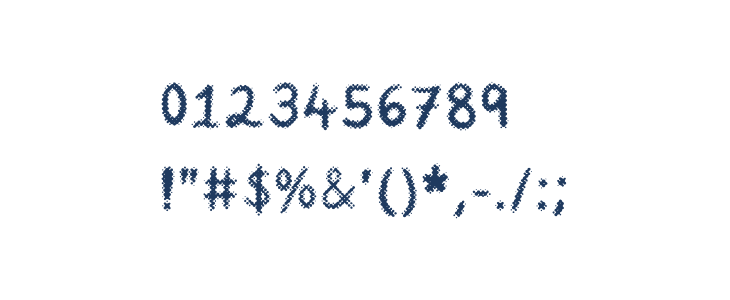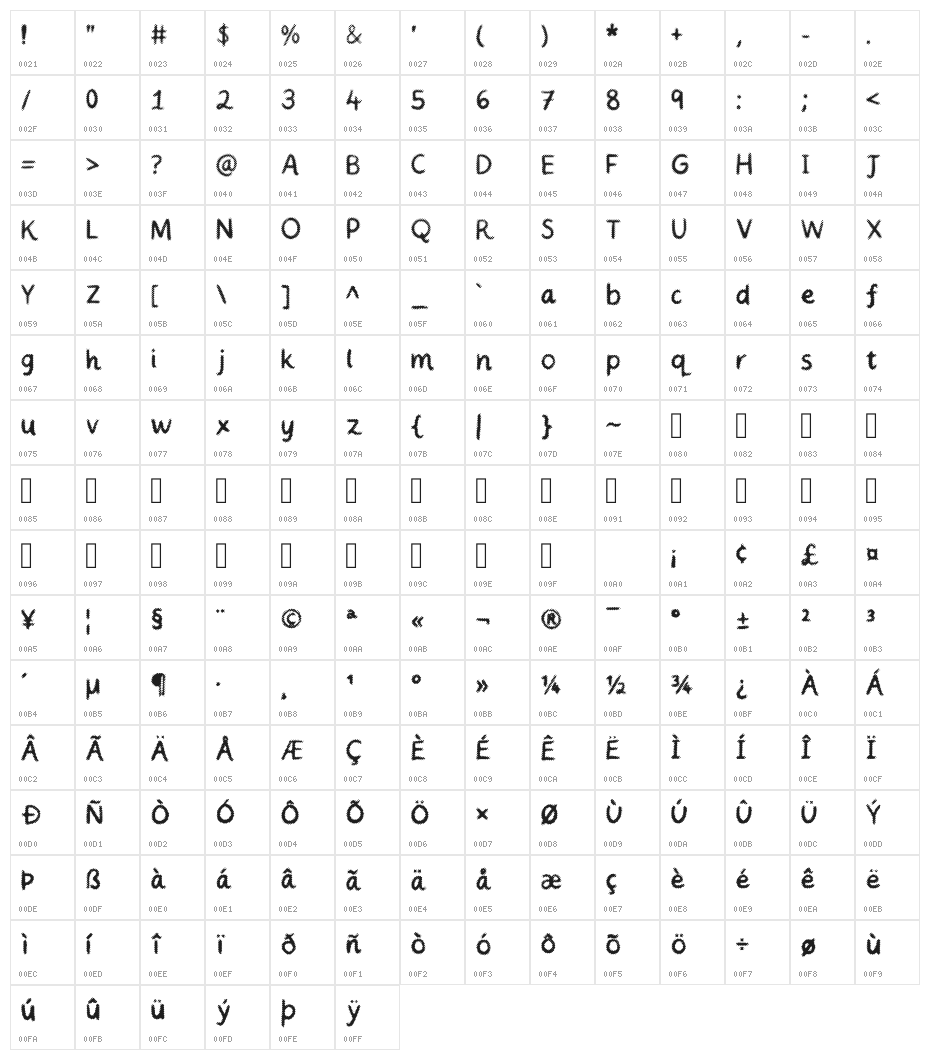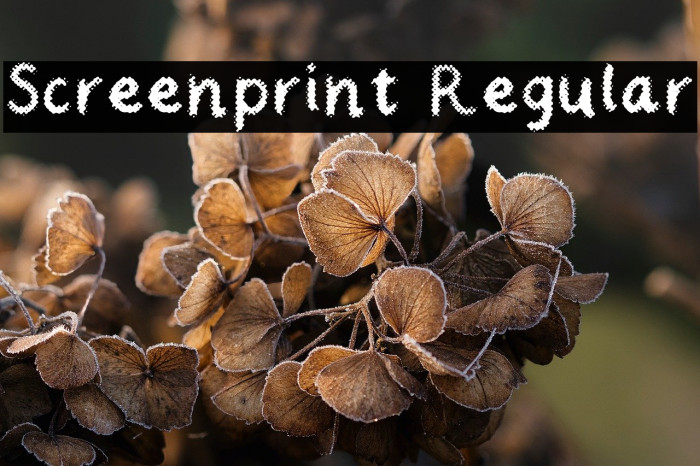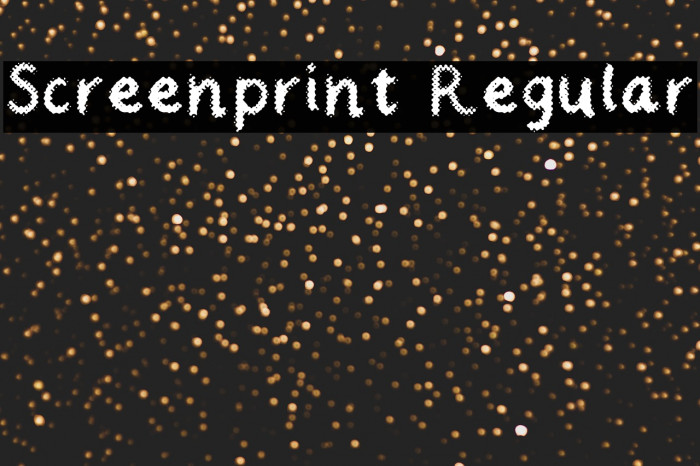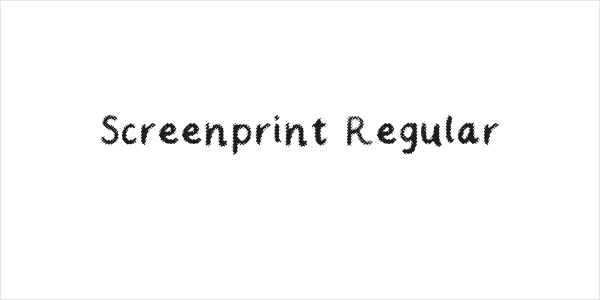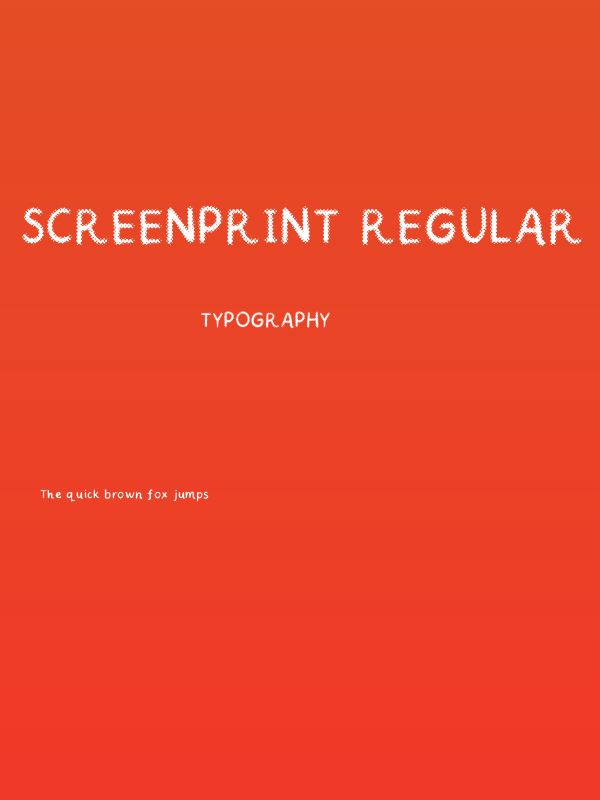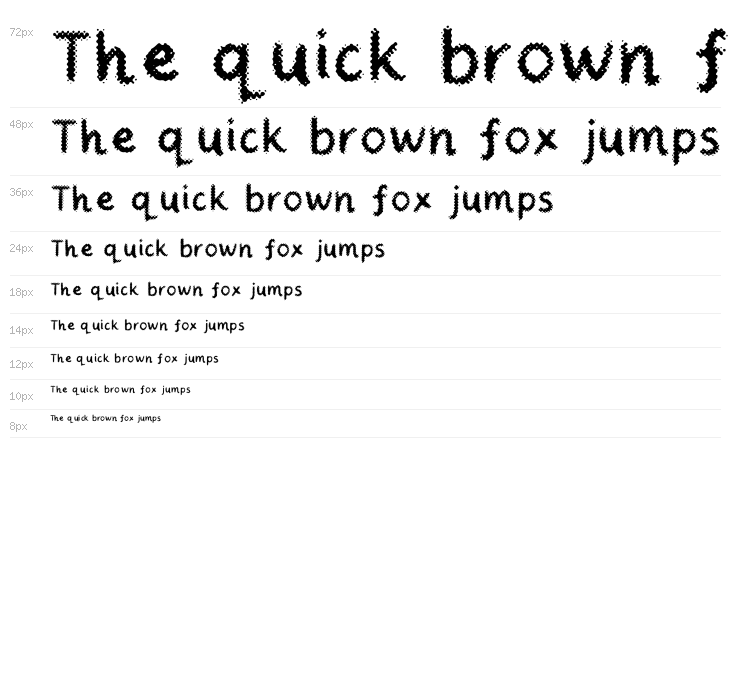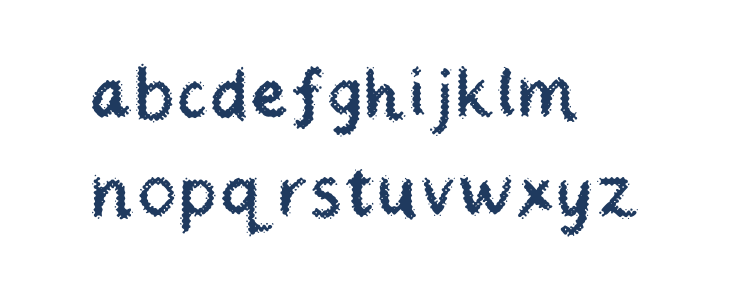
Screenprint Regular Font
Screenprint Regular Description
This font features a unique, textured appearance reminiscent of screen printing techniques. Each character is composed of a series of dots, creating a visually striking and tactile effect. The letters are bold and slightly irregular, giving them a handcrafted feel. The uppercase and lowercase letters maintain a consistent style, with rounded edges and a playful, artistic vibe. Numbers and special characters are designed with the same dotted texture, ensuring a cohesive look across all glyphs. This font stands out for its creative and unconventional design, making it ideal for projects that require a distinctive and artistic touch.
| Overall Style | Artistic, Creative |
| Proposed Projects | Ideal for posters, artistic projects, branding, and any design requiring a unique, textured look. |